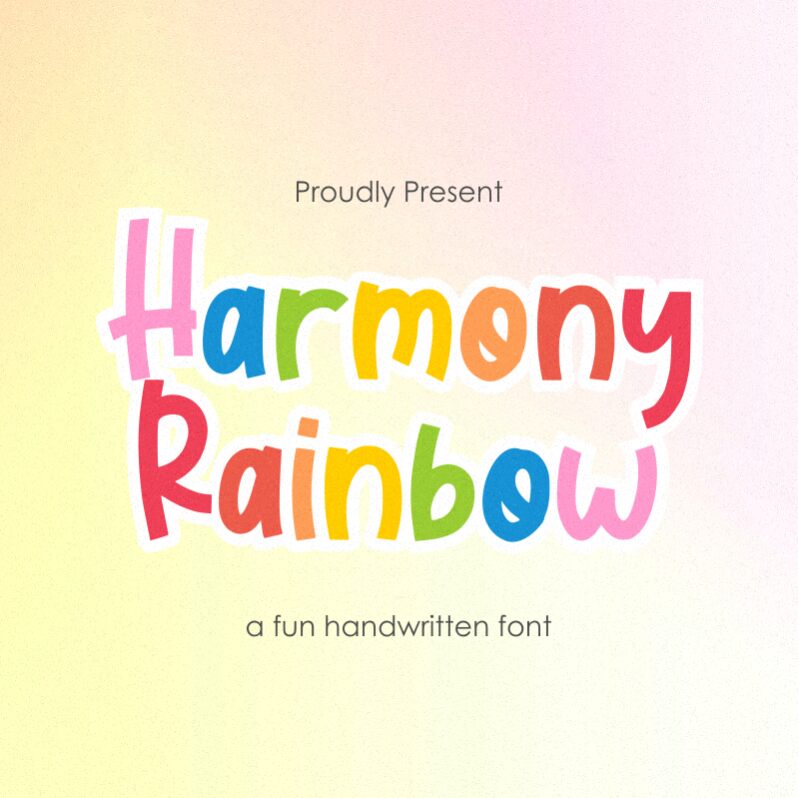
Harmony Rainbow Demo
Harmony Rainbow, the whimsical creation of Qwrtype Foundry, is a display font that adds a playful touch to any project. Its semi-light weight and cartoon style make it perfect for children's books, posters, and invitations. This font's fun and lively personality can be used for anything from birthday party decorations to school flyers. Whether you're designing for a children's charity or creating an animated video, Harmony Rainbow will add a touch of magic to your project. Its bright colors and unique letter shapes will ensure that your message stands out and captures the attention of your audience.